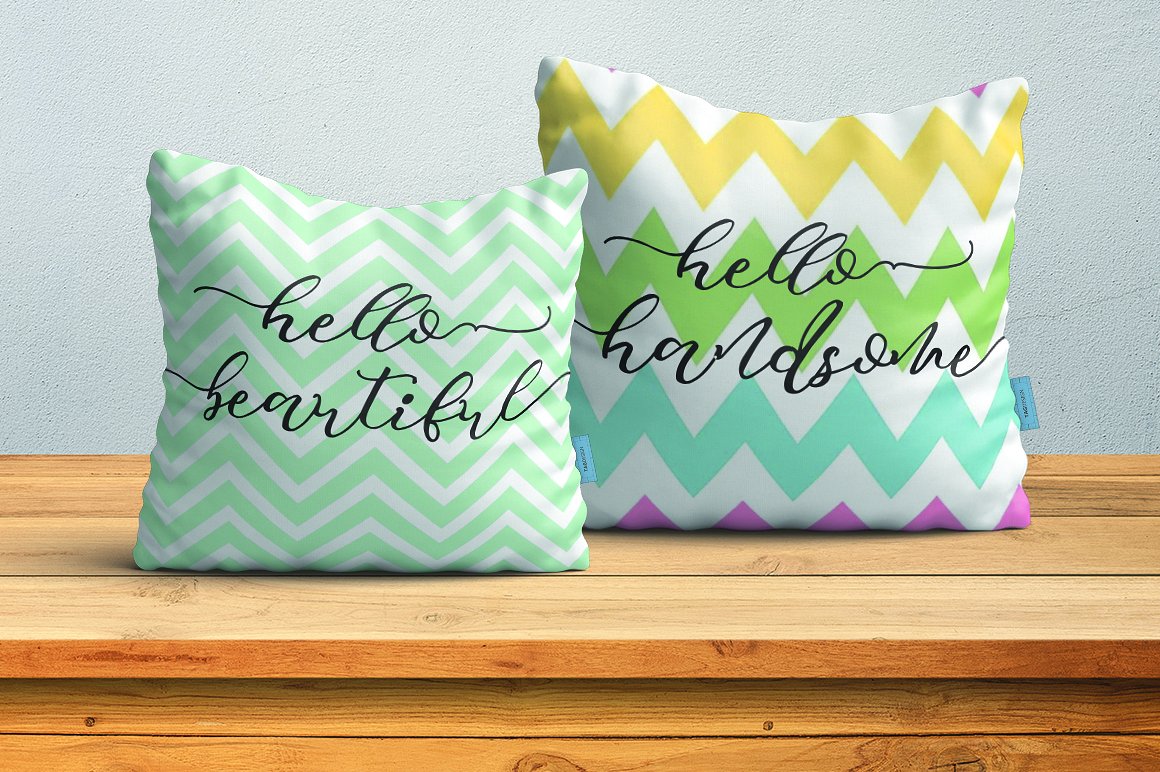
Mocking Script Font
Introducing Mocking Script Font! Mocking Script designed by Awakening Studios, this is a premium font, are sold on creativemarket, but it was great, it is free today for download. Mocking Script is an elegant, flirty, calligraphy-style script with decorative end characters and a bounching baseline! So pretty on branding materials, blog headers, business cards, quotes and more. This font is suitable for making greeting cards, wedding invitations, branding and logo. This font is also suitable for something related to something romantic and girly.